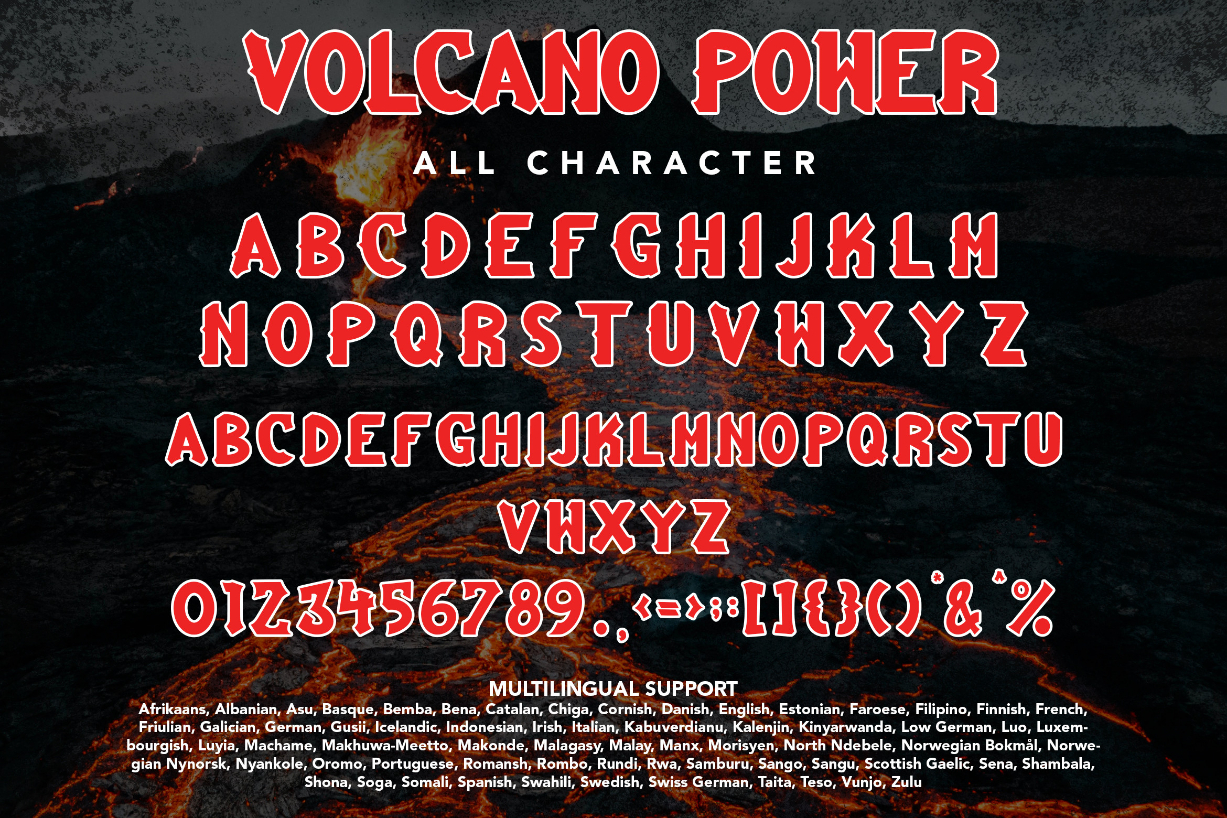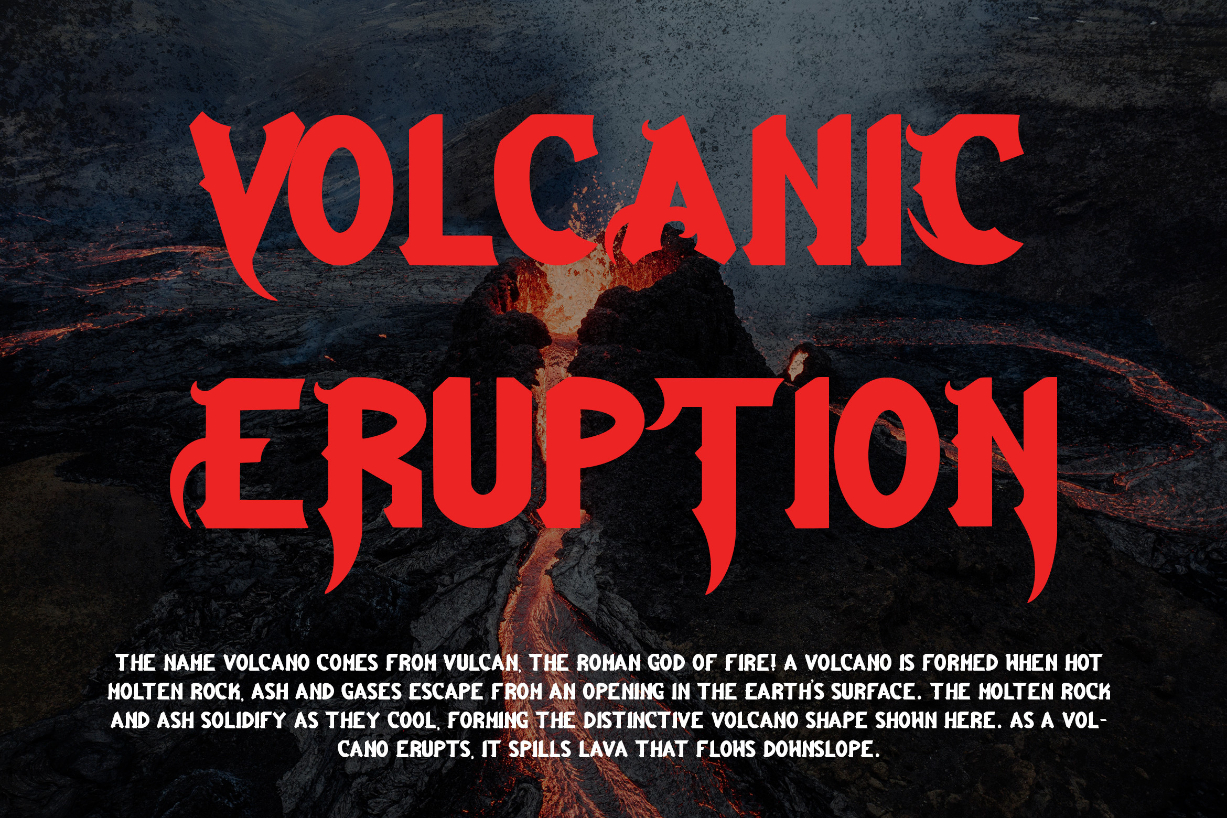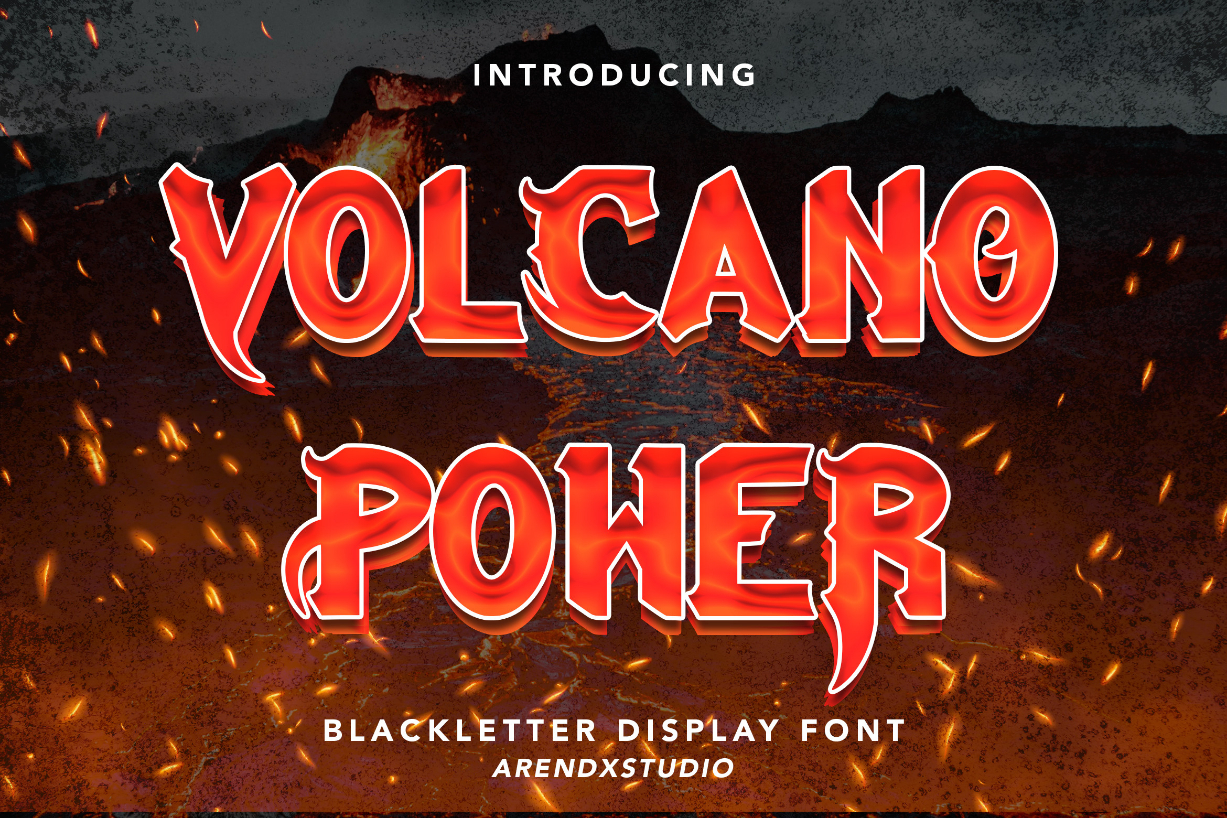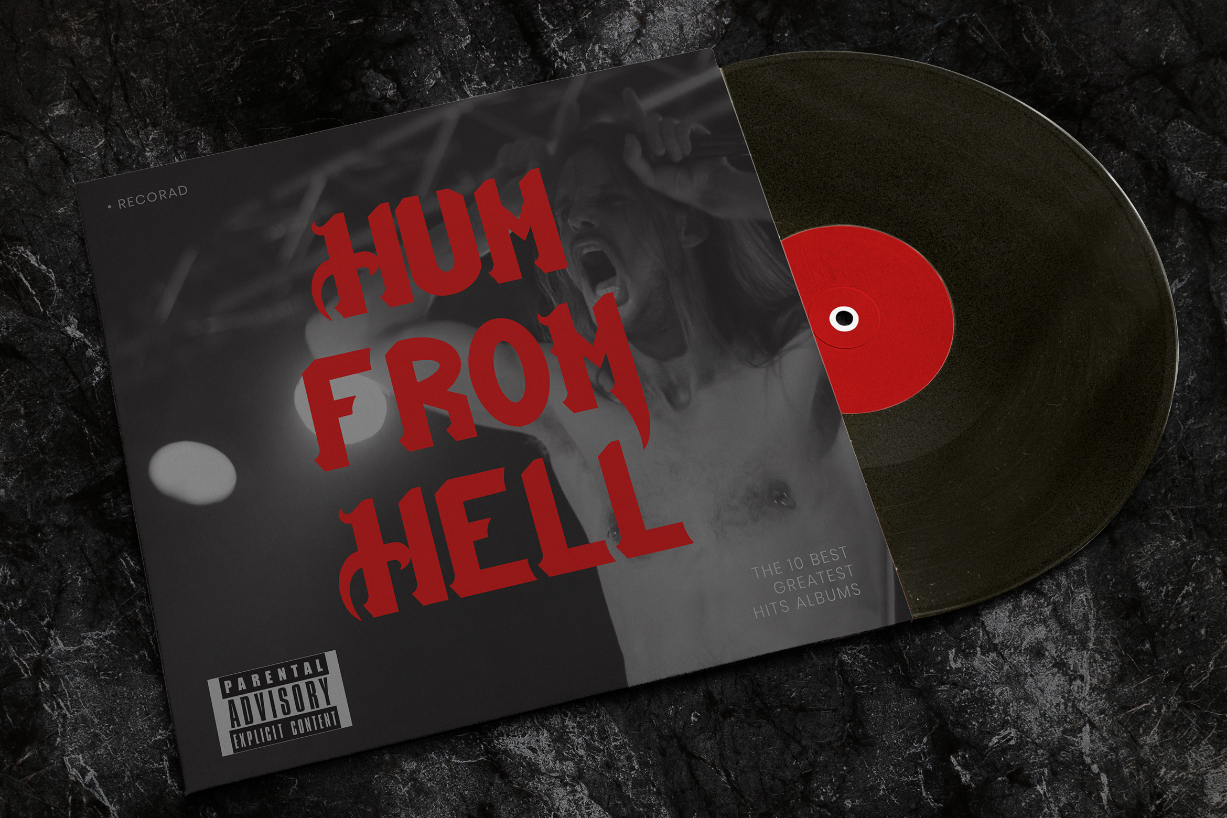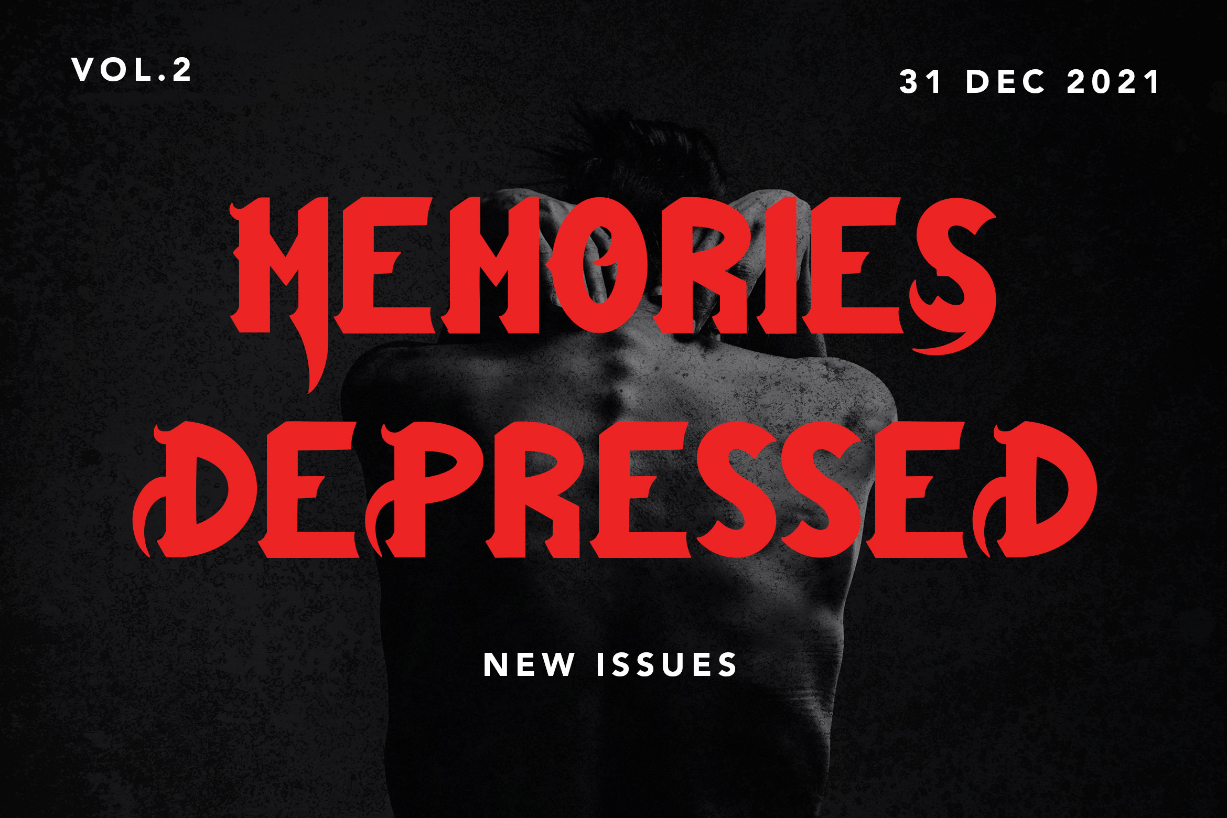
About Volcano Power Font
Volcano Power is a cool blackletter font inspired by gothic and horror-style typography. Its unique shape makes it perfect for any horror or gothic design project. Add it to your logotypes, posters, badges, book covers, T-shirts, packaging, and many more, and you will notice how it makes them stand out!